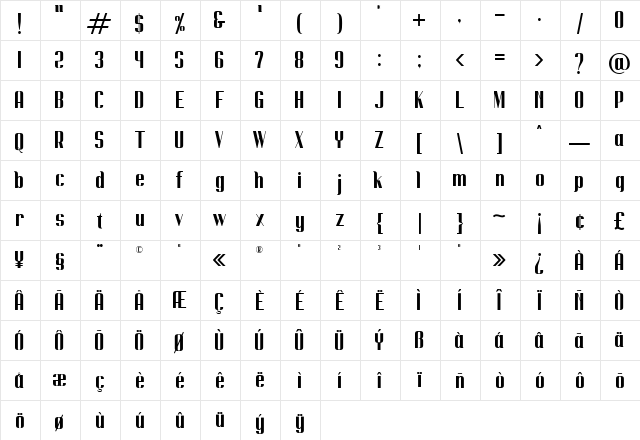
Cempe west Regular
| Foundry | Kong font |
| Designer | Kong font |
Design Context for Cempe west Typeface
Cempe west is a composed and adaptable typeface that performs quietly and consistently across a wide range of design contexts.